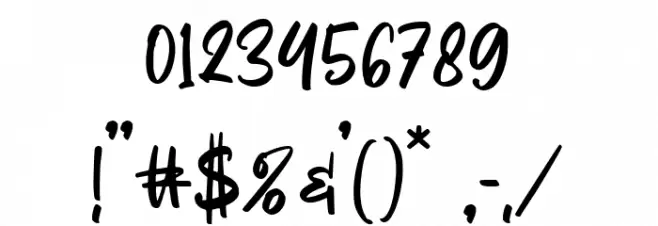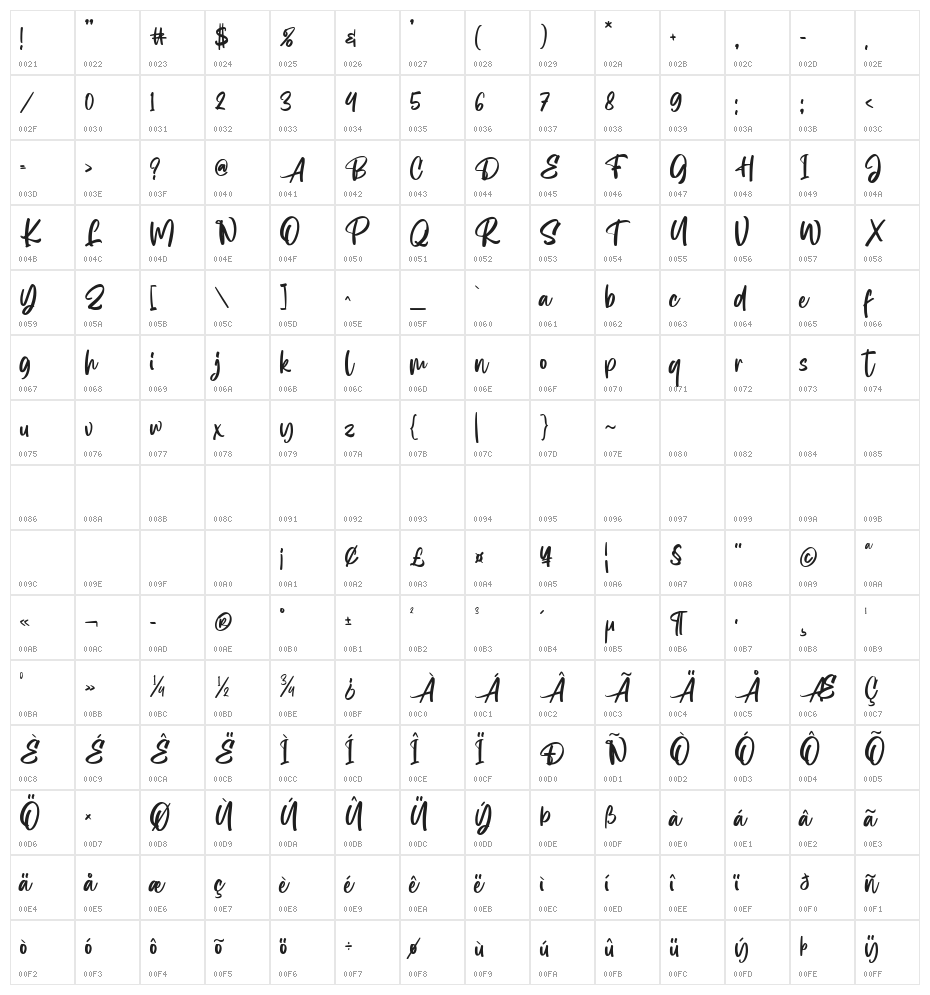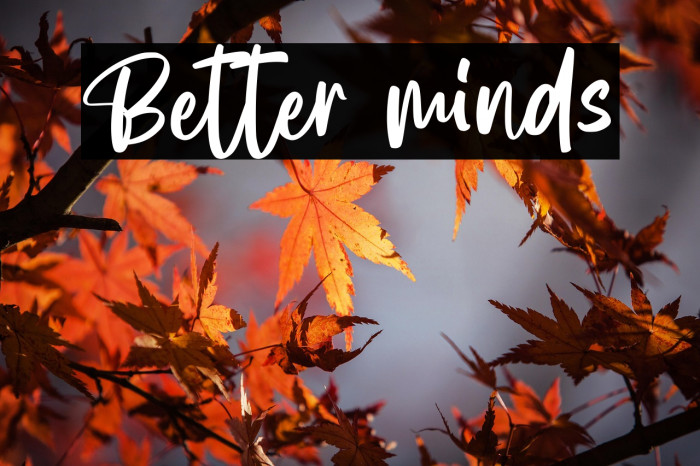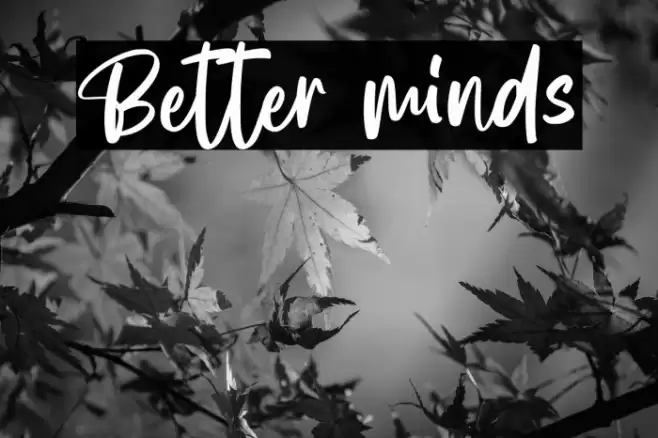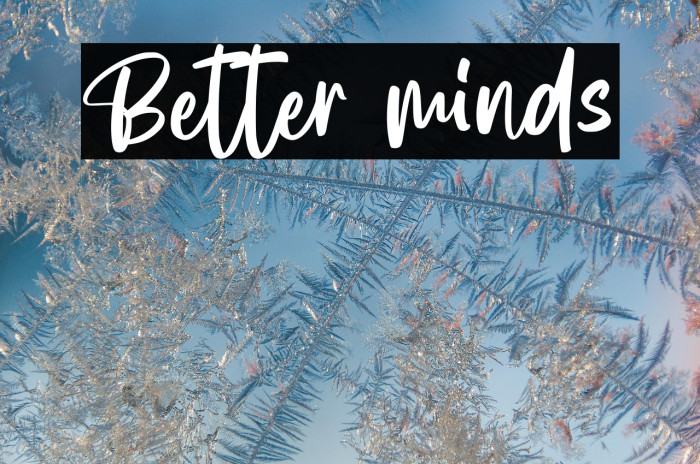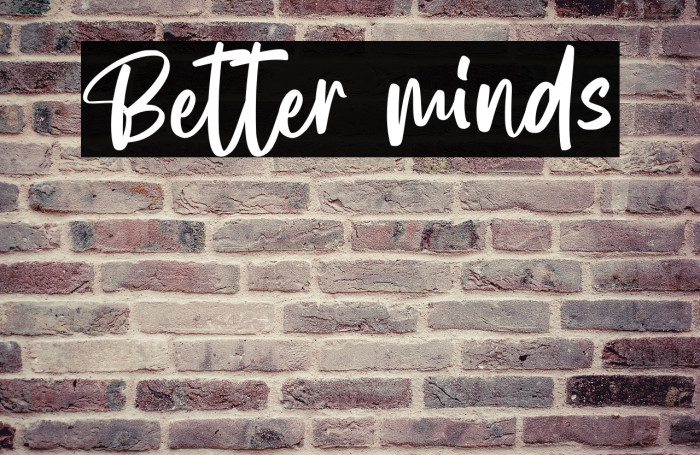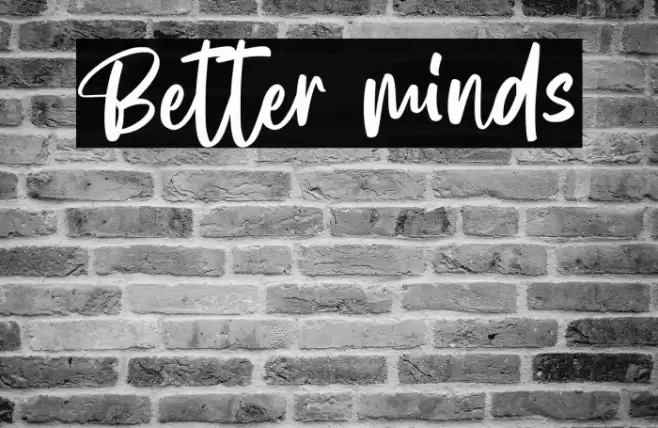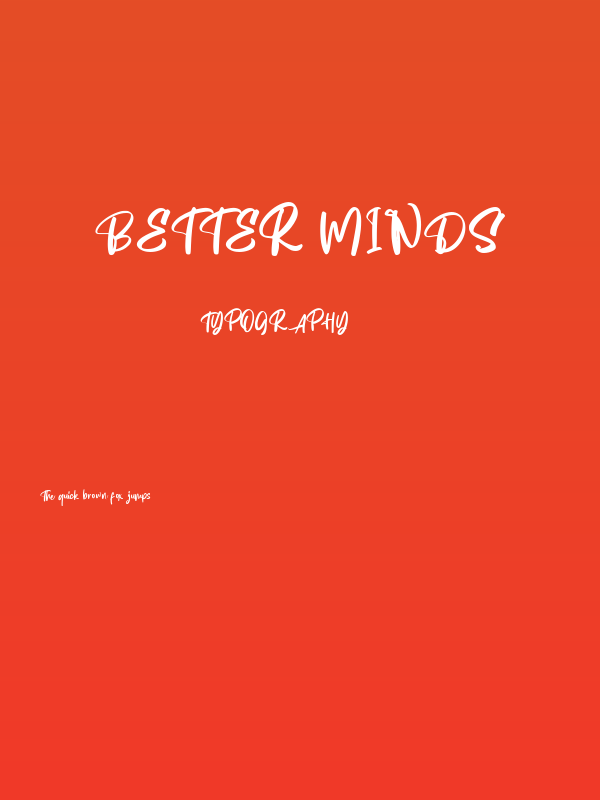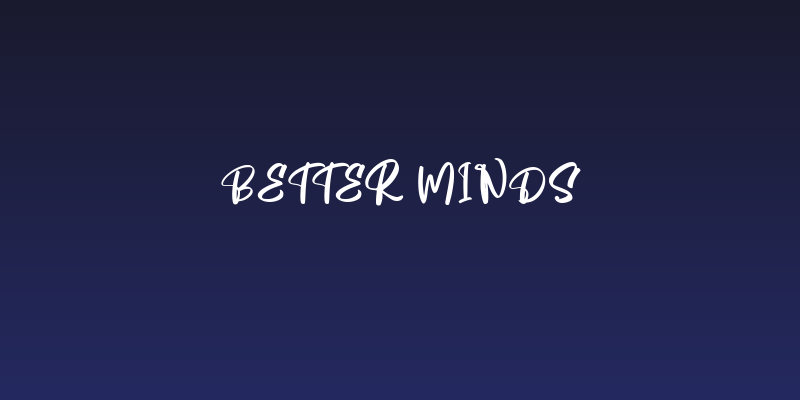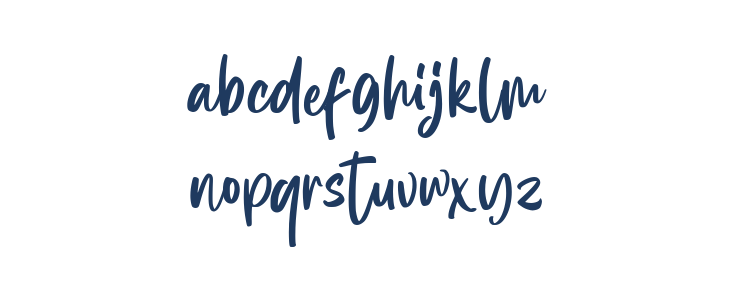
Better minds Font
Better minds Description
This font features a lively and expressive handwritten style, characterized by its bold and dynamic strokes. The letters are slightly slanted, giving a sense of movement and fluidity. The uppercase characters are distinct with a playful yet sophisticated flair, while the lowercase letters maintain a consistent flow. The numerals are well-integrated, matching the overall aesthetic of the font. Special characters are creatively designed, adding to the font's versatility. The overall appearance is both modern and artistic, making it suitable for a variety of creative projects.
| Proposed Projects | Ideal for branding, invitations, social media graphics, and creative posters. |